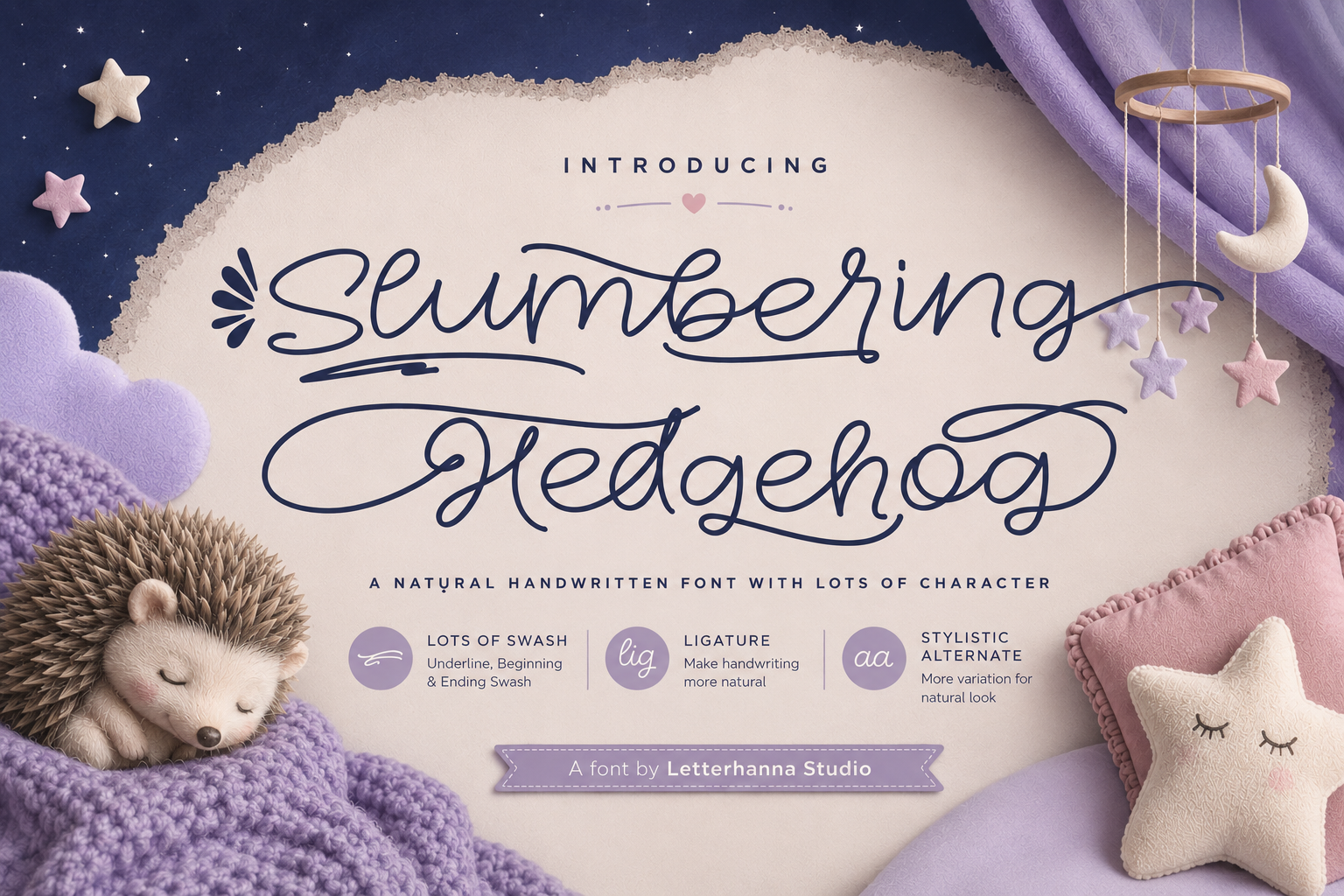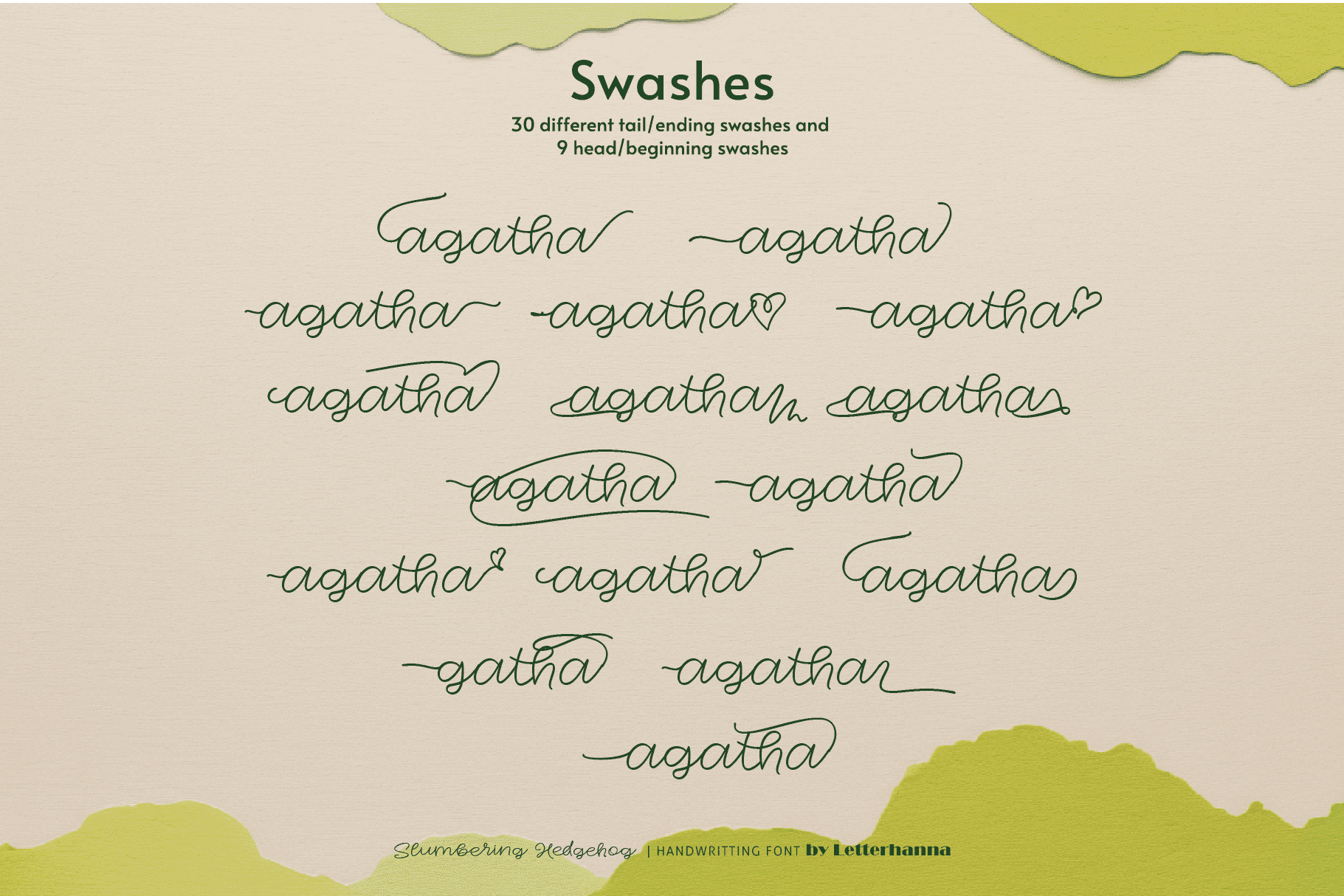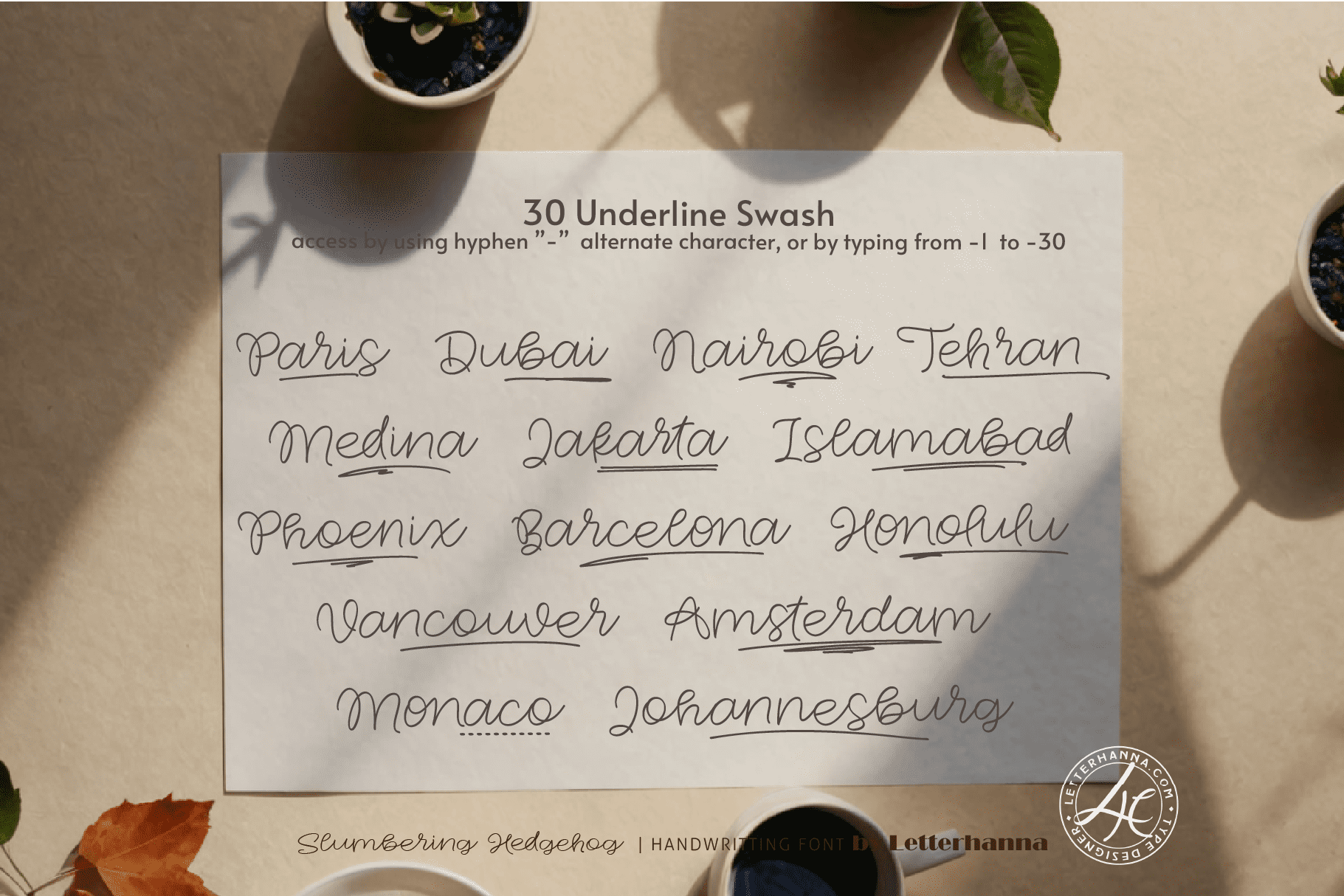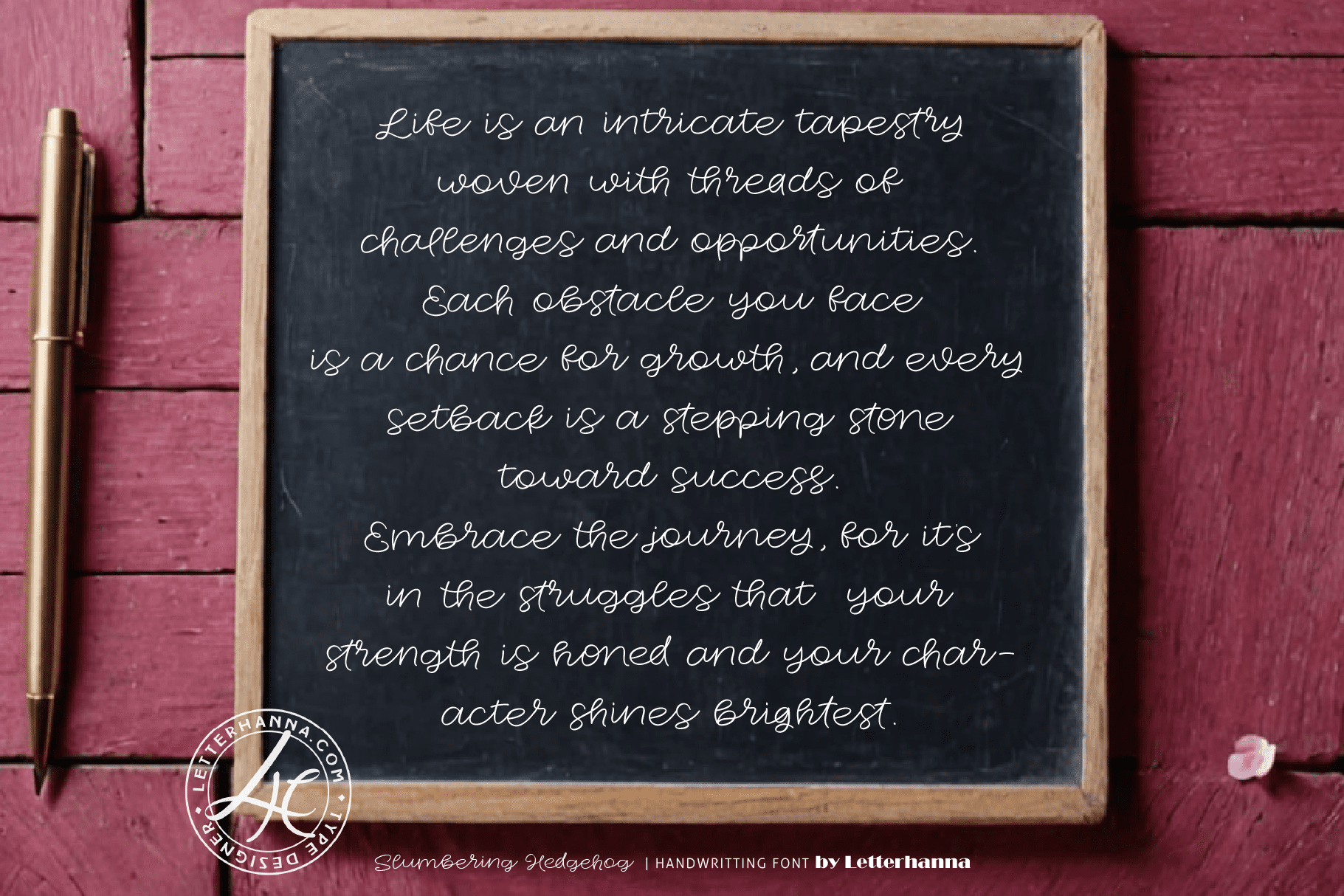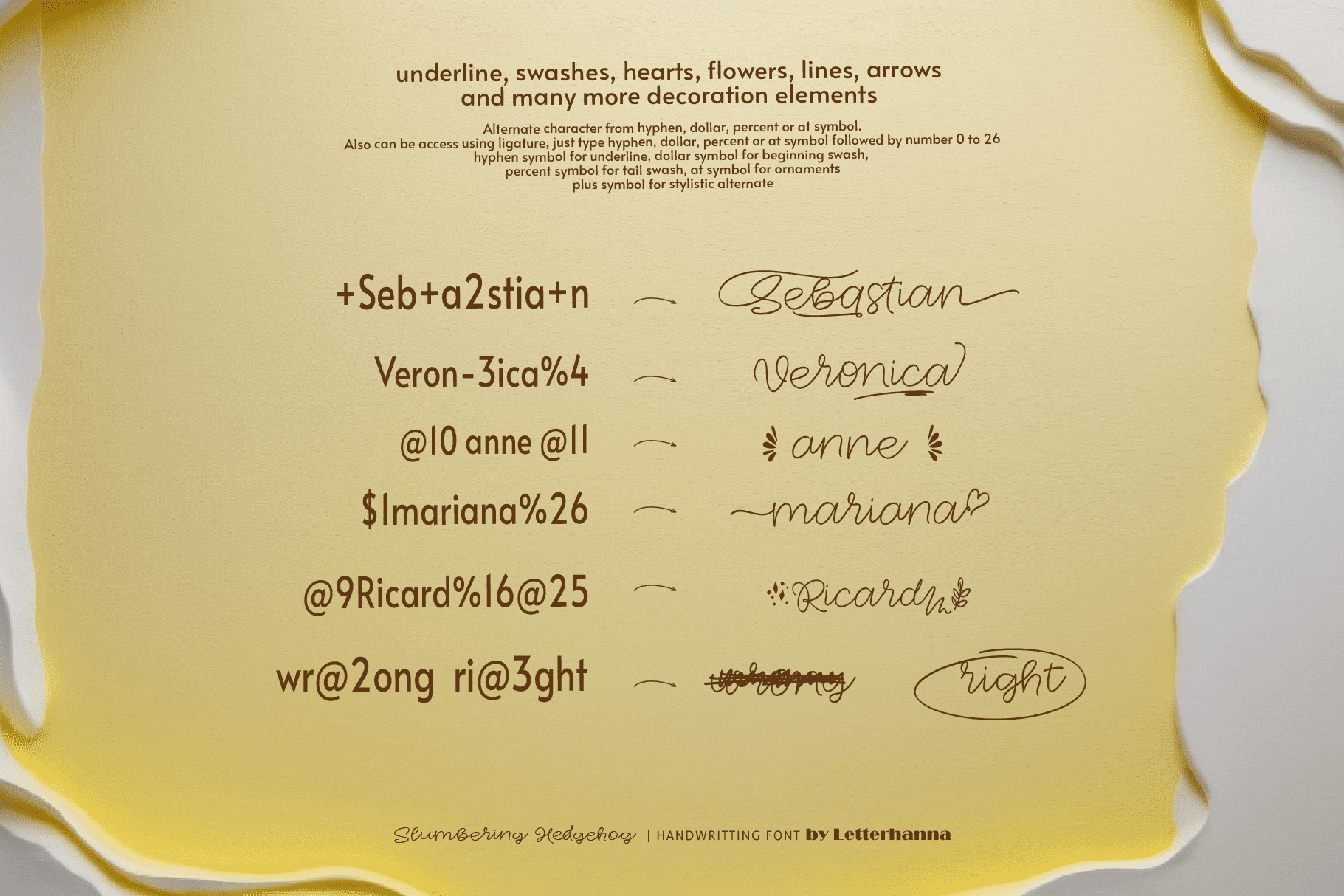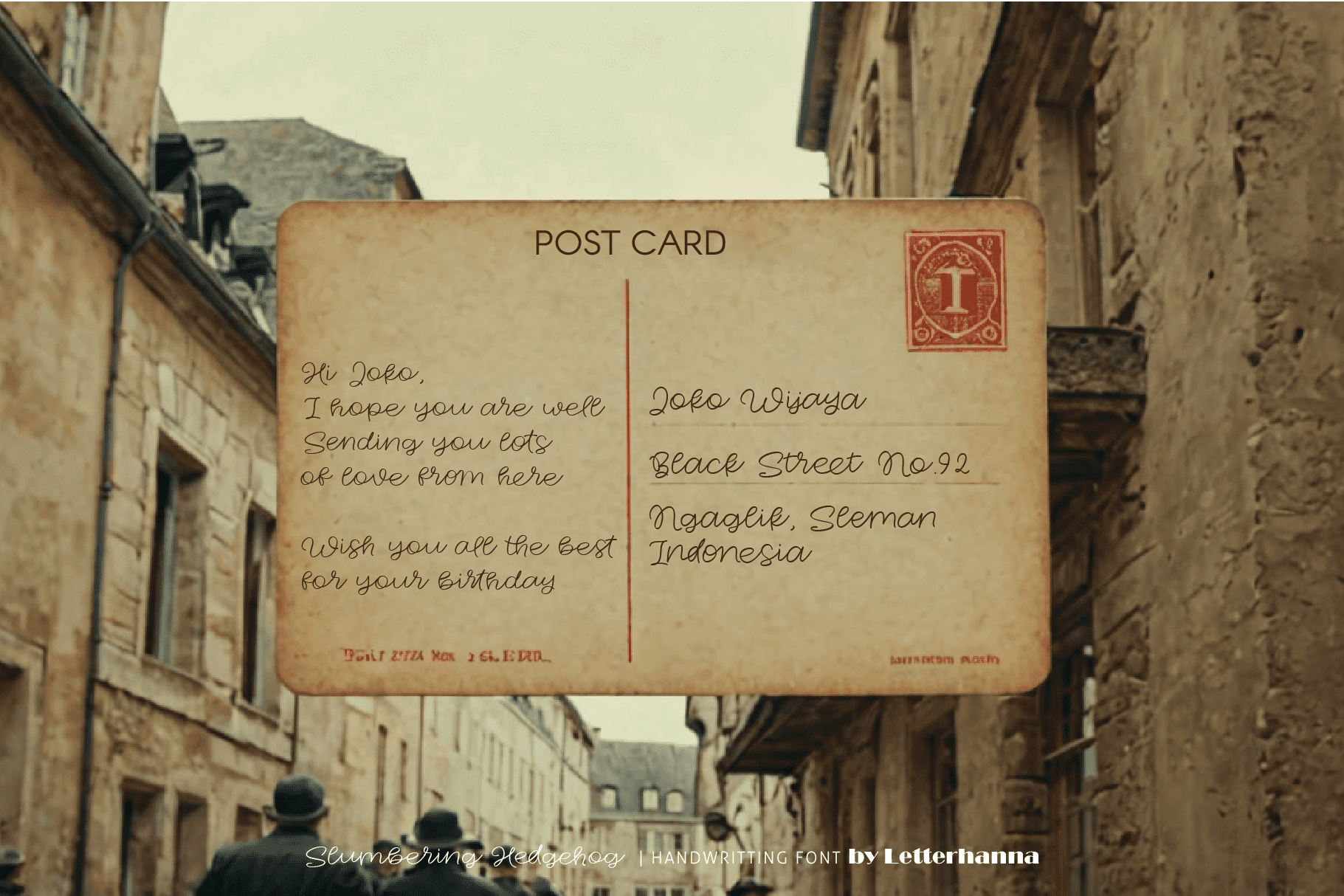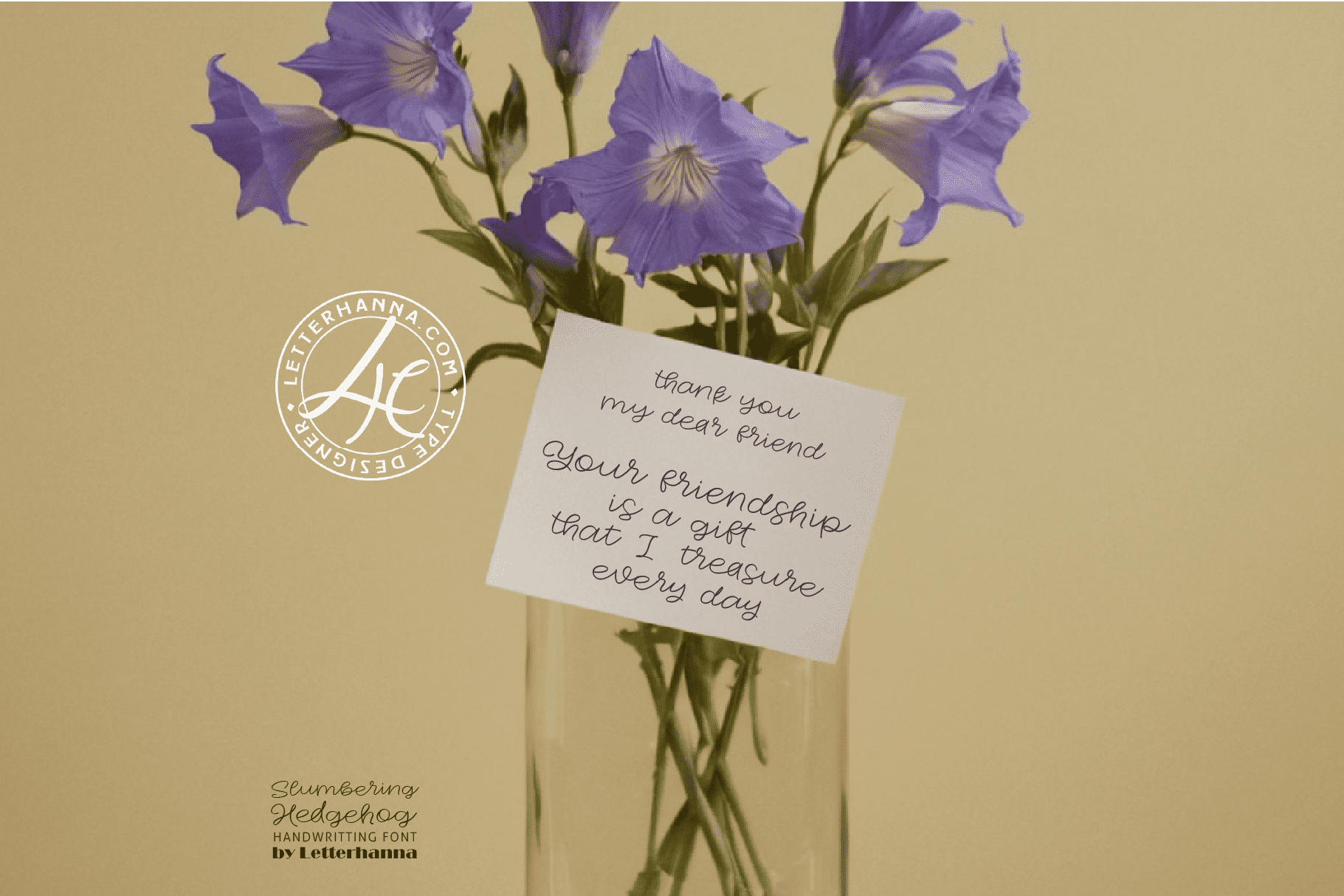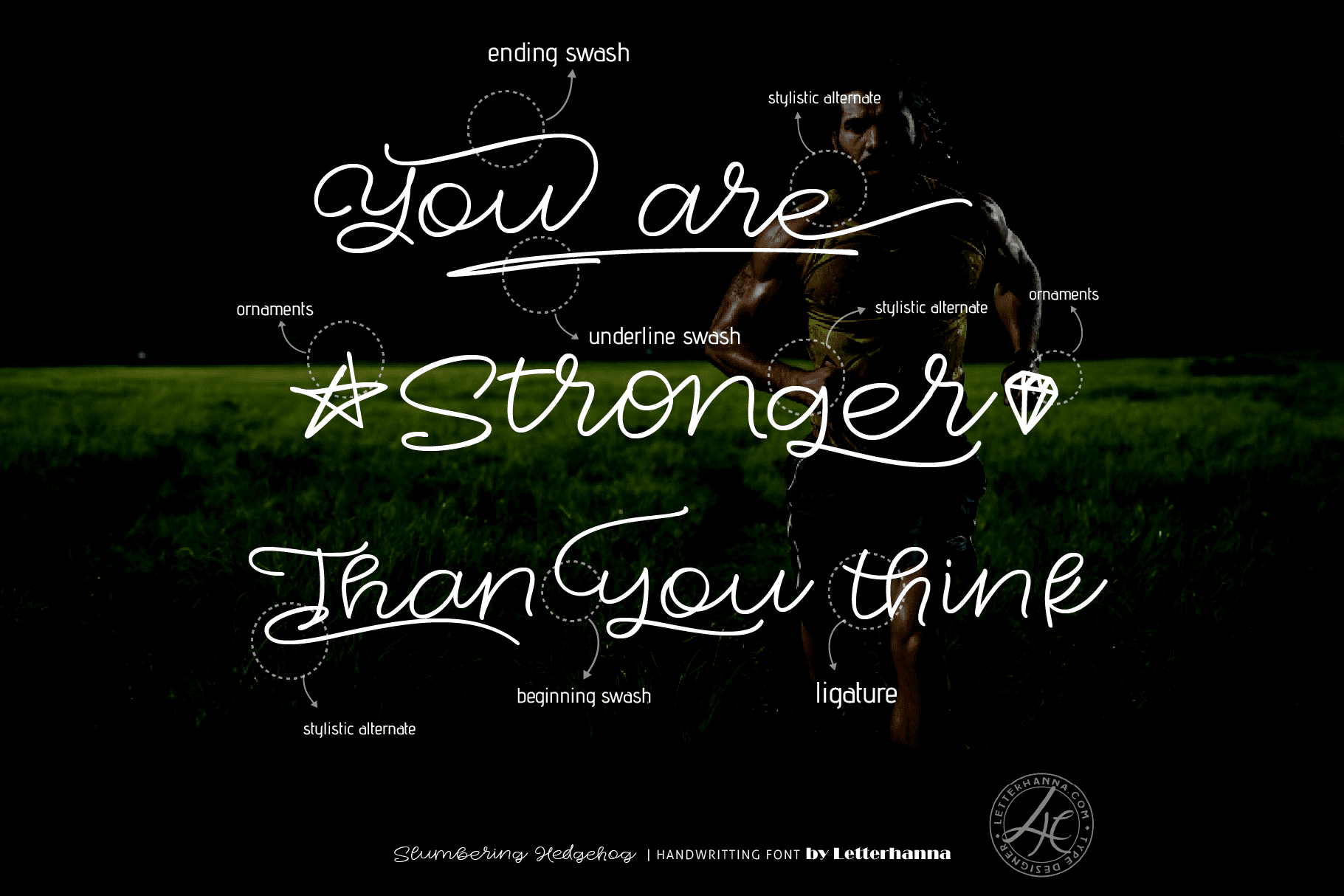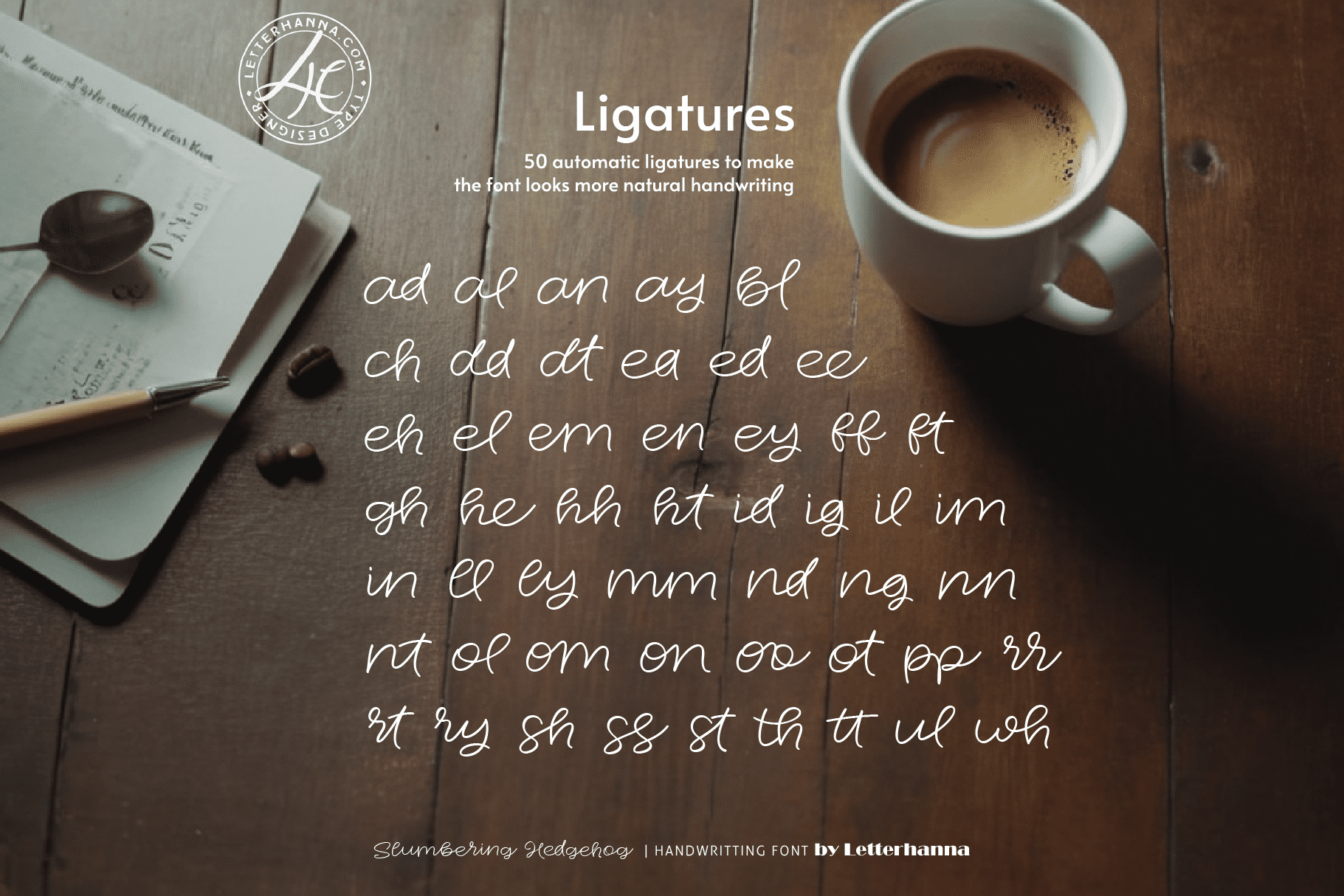
There’s a particular kind of magic that happens when a font stops behaving like a font and starts behaving like a little creature with a personality of its own. That’s exactly the feeling behind Slumbering Hedgehog, a whimsical typeface built for designers who are tired of predictable letterforms and want something that feels alive, curious, and just a little bit strange in the best way possible.
Picture a hedgehog curled up under a pile of autumn leaves, half-asleep, unbothered by the world rushing around it. That image is the soul of this font. Every letter in Slumbering Hedgehog seems to move at its own unhurried pace, looping and drifting across the page the way a sleepy creature ambles through a quiet garden. It’s not a font that shouts for attention. It’s a font that draws you in slowly, the way a good bedtime story does.
If you’ve been searching for a whimsical typeface that breaks away from the stiff, symmetrical scripts flooding most font marketplaces, this is where the design gets interesting. Slumbering Hedgehog uses a monoline stroke, meaning every line keeps the same gentle thickness from start to finish. That choice gives the font a hand-drawn, almost doodled quality, like something sketched in the margins of a journal during a rainy afternoon. Combined with exaggerated swashes, uneven baselines, and looping connections between letters, the result sits comfortably in the growing world of dreamy fonts that prioritize mood over rigid structure.
What makes this typeface stand out among the sea of quirky fonts available today isn’t just its shape, it’s the emotional tone it carries. The letterforms rise and dip unpredictably, almost like breathing. Some characters lean forward as if peeking curiously at their neighbors, while others curl backward into soft spirals, echoing the round, sleepy silhouette of a hedgehog. This isn’t randomness for its own sake. It’s intentional imperfection, the kind that makes a design feel handmade rather than machine-generated.
Designers exploring weird fonts often want something that feels less commercial and more personal, and that’s precisely the gap Slumbering Hedgehog fills. It works beautifully for brands built around comfort, softness, and storytelling: think children’s book covers, cozy candle packaging, sleep and wellness products, nursery decor, or greeting cards meant to feel like a warm hug. The font doesn’t try to be sharp or corporate. Instead, it leans fully into charm, inviting the viewer to slow down and actually read each word instead of skimming past it.
There’s also a practical side to this whimsy. Despite its flowing, decorative nature, Slumbering Hedgehog remains legible at display sizes, which is often the biggest challenge with highly stylized scripts. The connecting strokes are balanced carefully so that even with all its personality, the font doesn’t sacrifice readability for the sake of decoration. That balance between playful and functional is what separates a truly usable whimsical typeface from one that only looks good in a mockup and falls apart in real-world use.
Every project has a mood it’s trying to capture before a single word is written, and font choice does more heavy lifting in that mood-setting than most designers give it credit for. A cold, geometric sans-serif tells one story. A soft, meandering script like Slumbering Hedgehog tells an entirely different one, filled with warmth, nostalgia, and a touch of gentle eccentricity. If your brand or project needs to feel like a quiet exhale rather than a loud announcement, this typeface was practically made for that purpose.
For anyone building a visual identity around comfort, sleepiness, softness, or a slightly offbeat charm, Slumbering Hedgehog offers a rare combination: the elegance of a hand-lettered script paired with the playful unpredictability of a genuinely quirky font. It’s a typeface that doesn’t take itself too seriously, and that’s exactly the point.